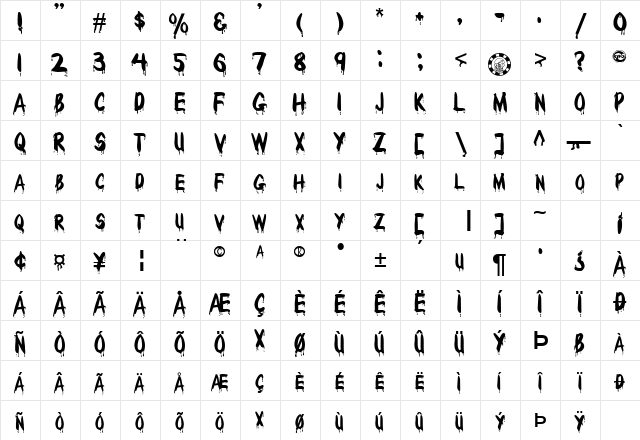
Redcap Bloodthirsty
Design Context for Redcap Typeface
Redcap carries an unsettling edge — its distorted letterforms are built to unsettle, perfectly suited to horror, Halloween, and dark creative work.
Ideal for Halloween projects, horror film titles, haunted house signage, and dark editorial design.
Font Pairing: Pair with a clean neutral sans-serif for body copy to let Redcap's character lead without overwhelming the composition.
Pro Tip: Redcap works best as a headline or focal element. Pair it against plain, neutral body text to amplify the contrast.